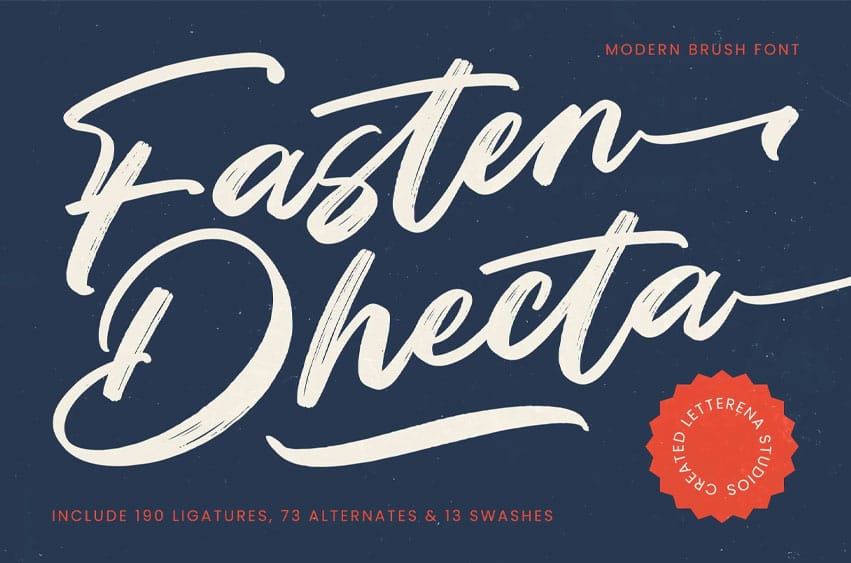
Fasten Dhecta Font is suitable to complement your digital and printed creative products. This font is perfect for posters, social media posts, branding, personal projects, etc.